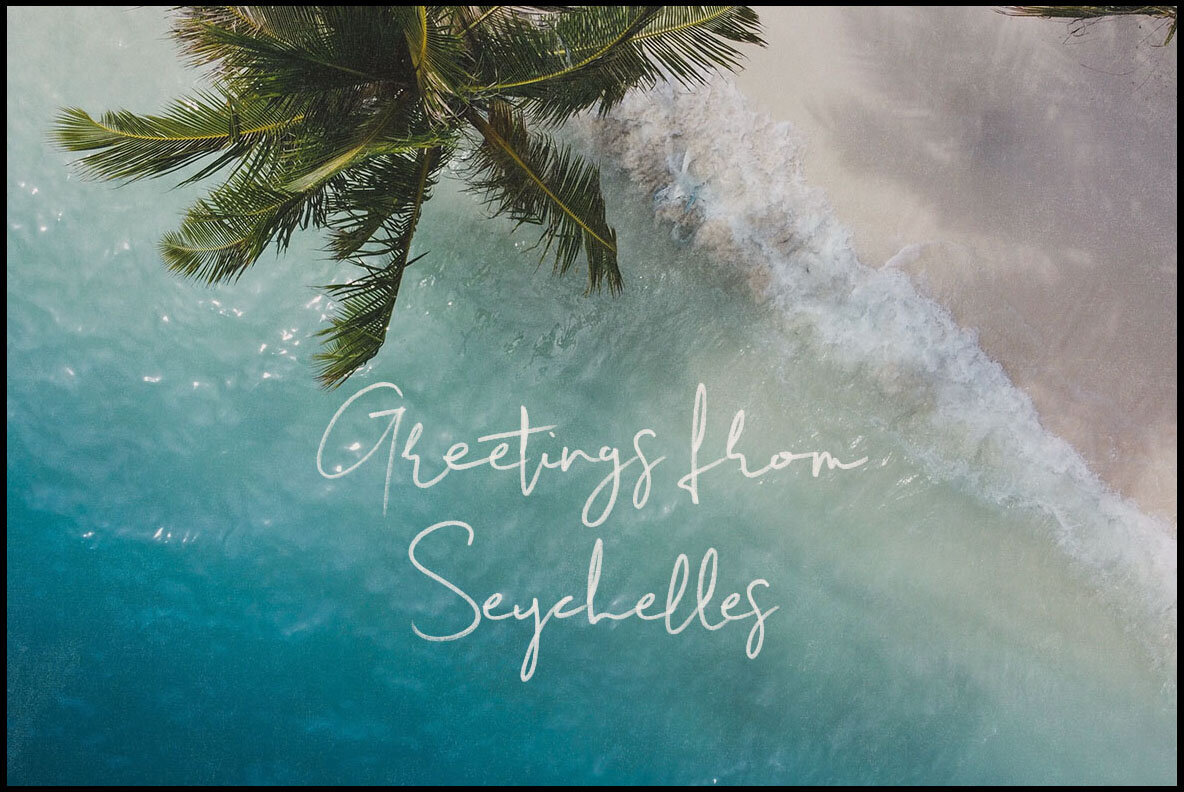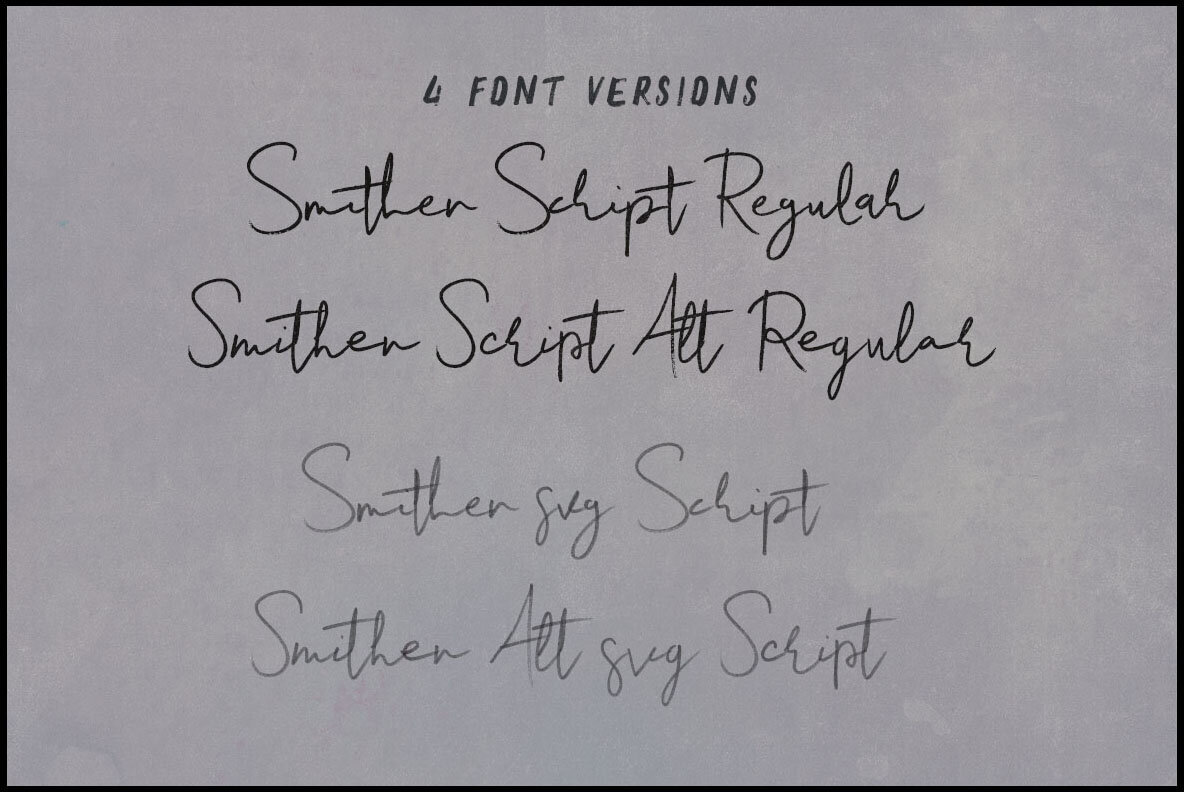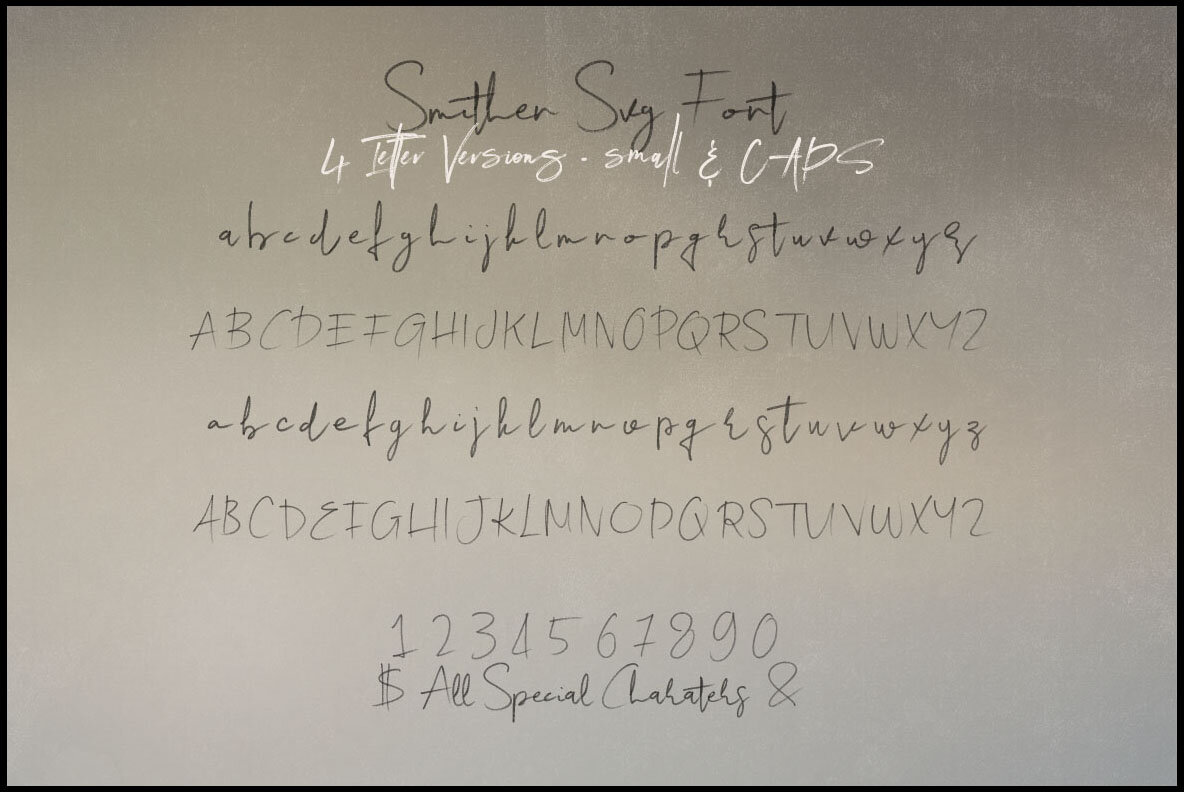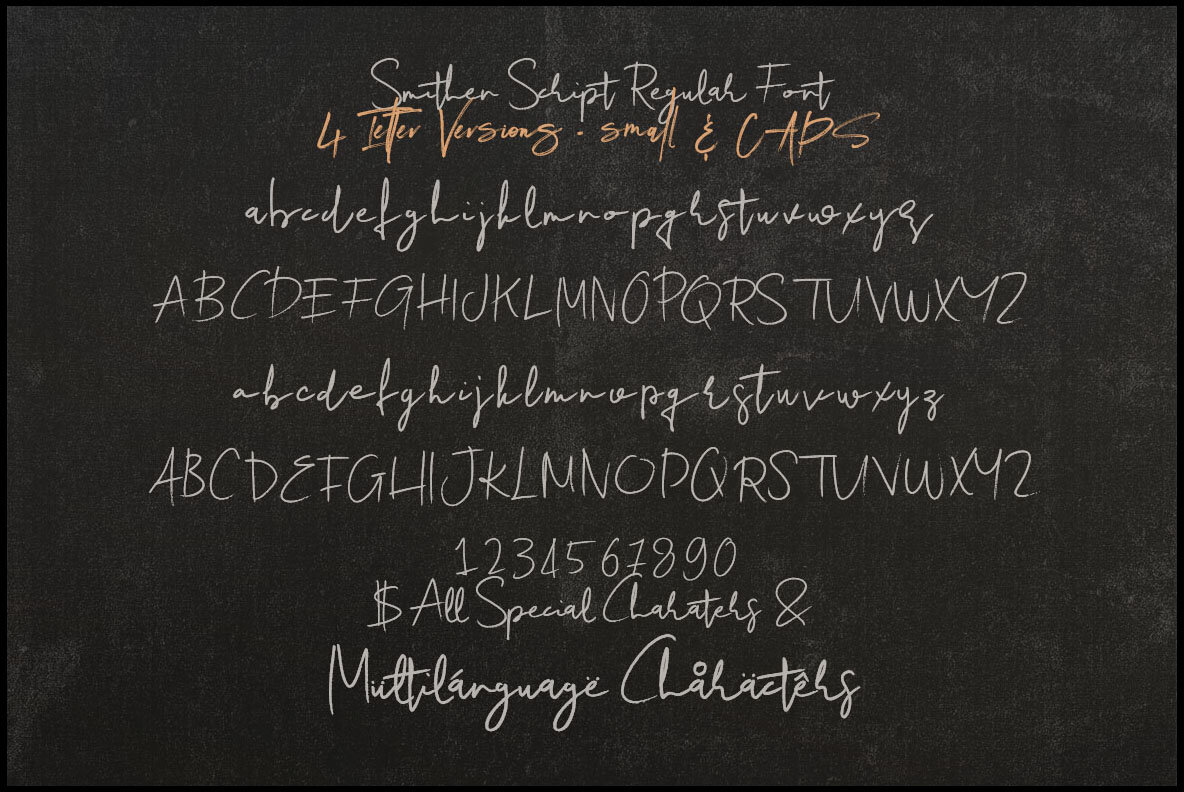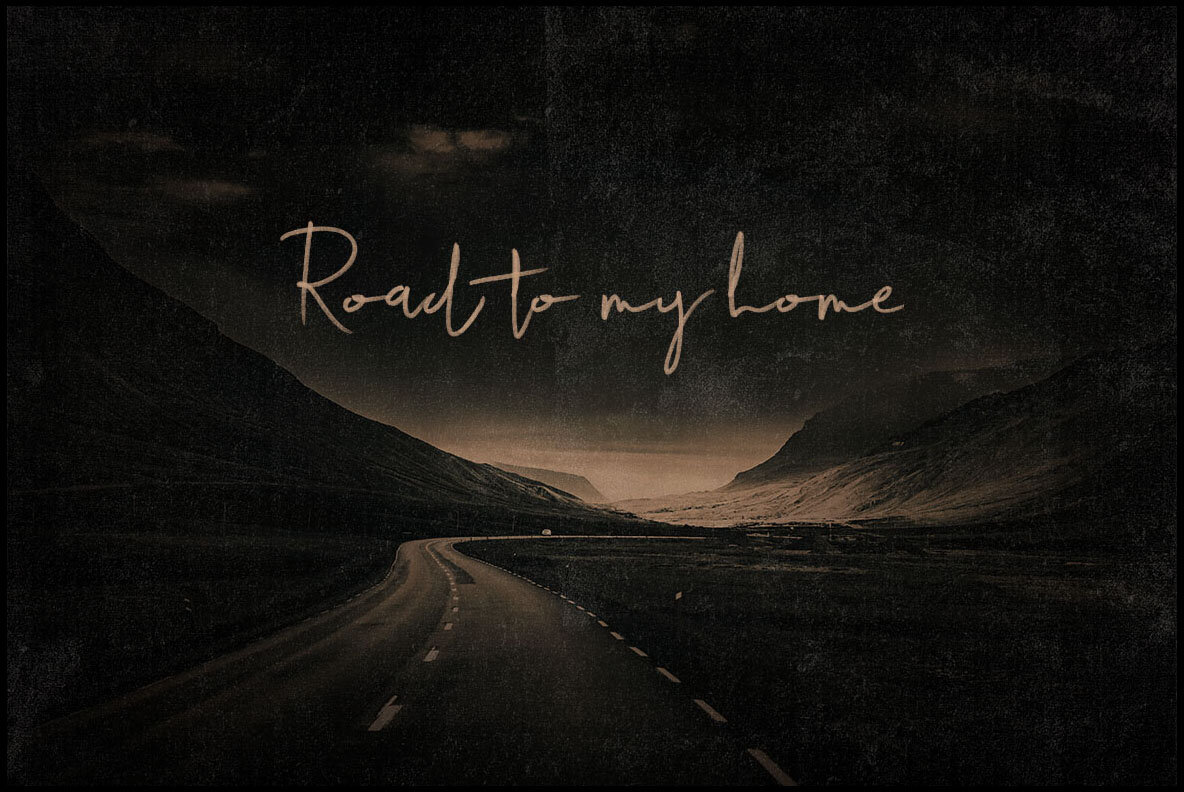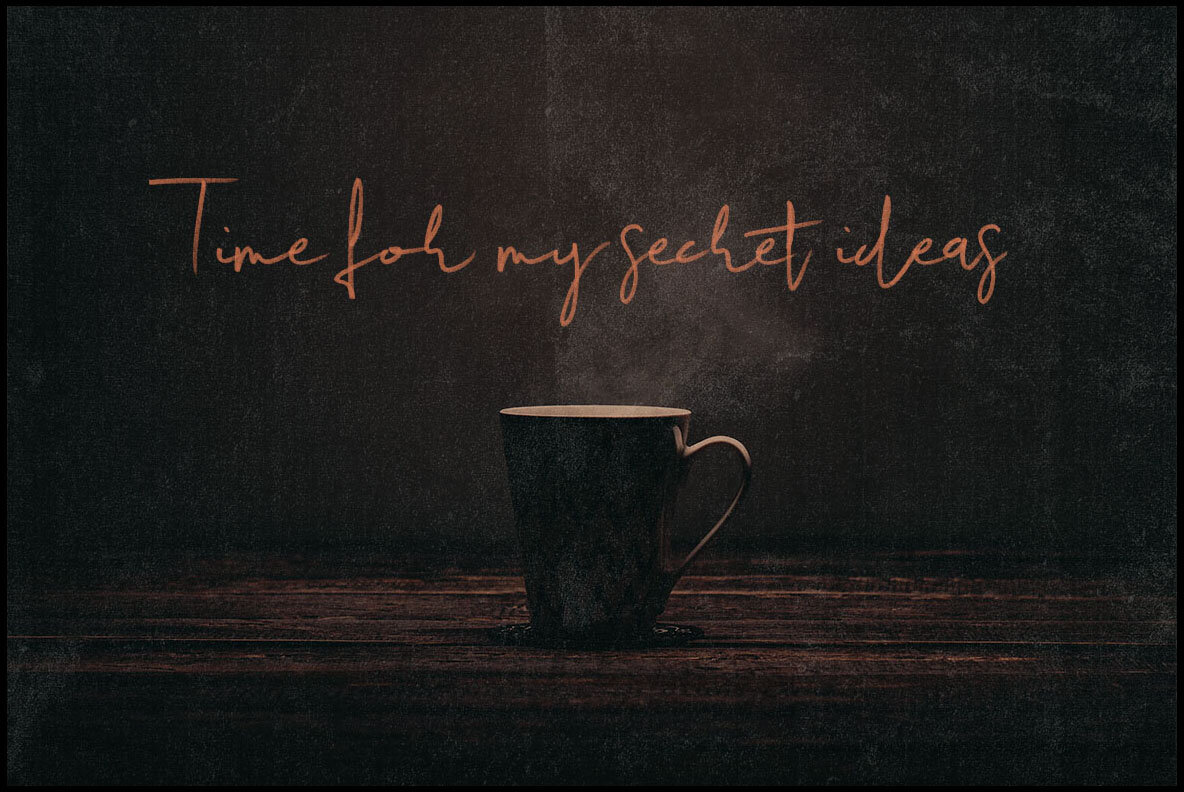
Smithen Script Font
Smithen Script by Peter Olexa is a marker and brush-style script font, perfect for adding a grunge or artistic flair to your projects. Its unique design is ideal for creative ventures requiring a bold and expressive script.Smithen Script: Expressive Handcrafted Script Font